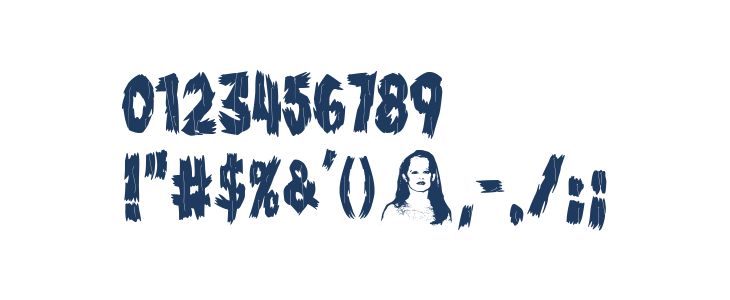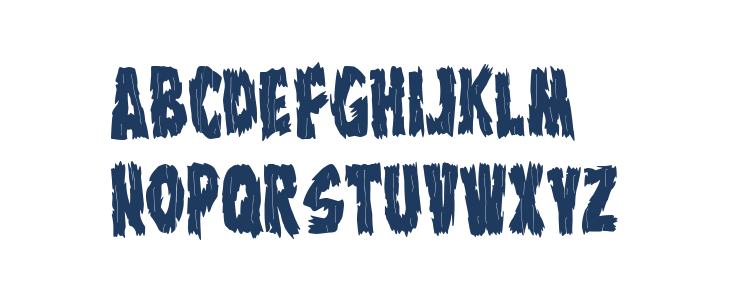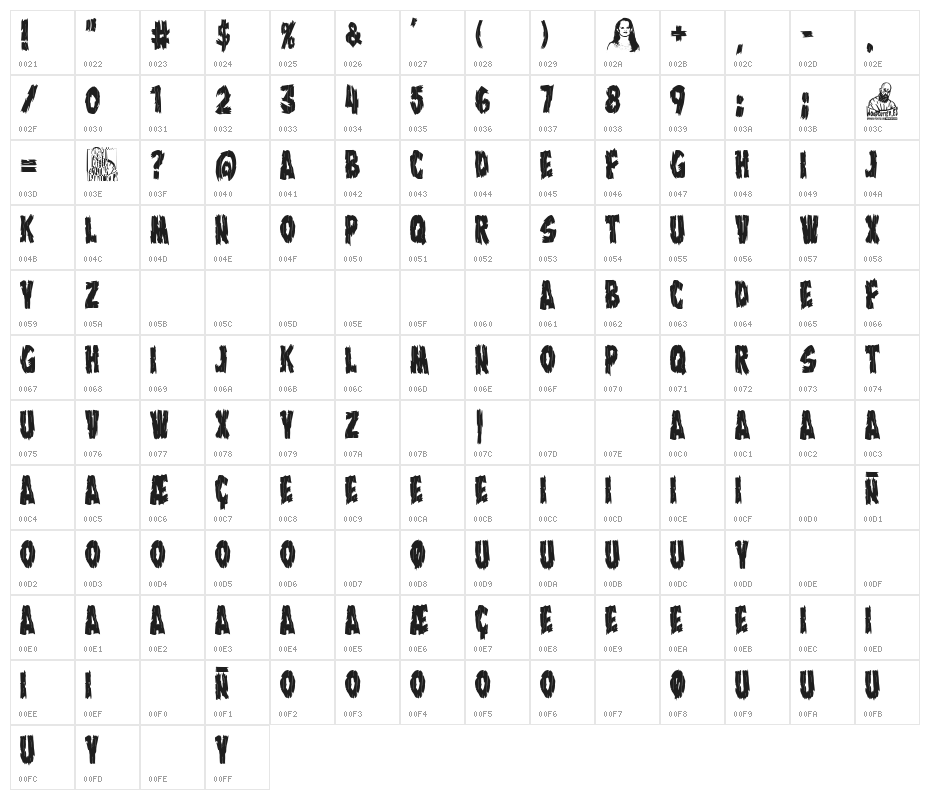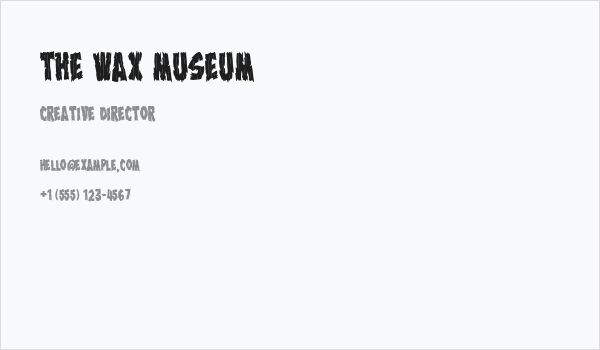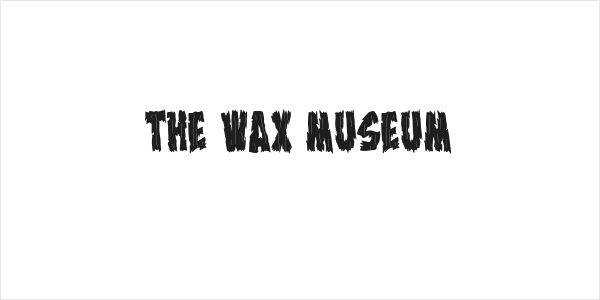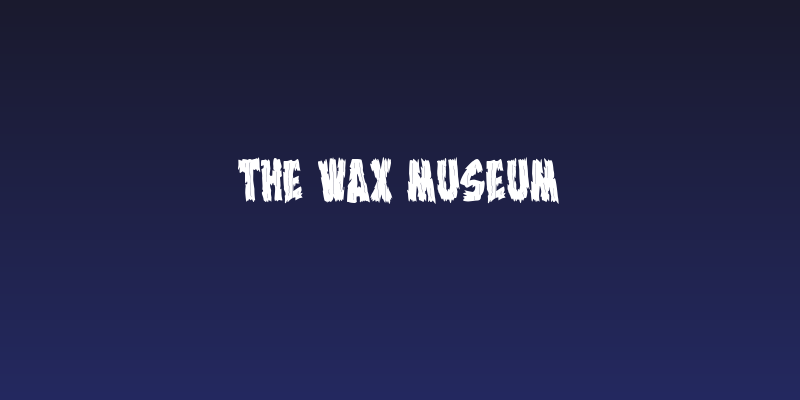
The Wax Museum Font
A bold, jagged, and highly textured display font with rough, irregular edges that evoke a sense of horror or suspense. The characters are uppercase only, with exaggerated brush-like strokes and uneven contours, creating a chaotic and dramatic appearance.
Overall StyleDecorative, Horror, Dramatic
Use CaseHeadlines, Posters, Logos, Event Titles
Proposed ProjectsHorror movie posters, Halloween event flyers, haunted house branding, spooky party invitations, themed escape room graphics.